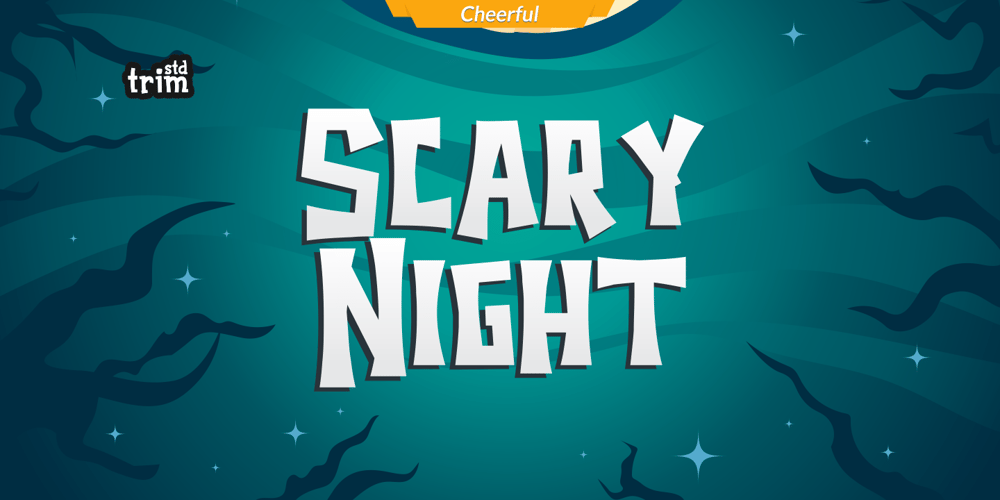
Scary Night
Scary Night font
Scary Night Font Family was designed by Deri Kurnia and published by Trim Studio. Scary Night contains 1 styles and family package options. Scary Night is the perfect Halloween font: scary, weird and creepy. It will add a touch of horror to any design project!Its perfectly suited for crafter and graphic artist to complete their design such as invitation, Halloween Event, advertisement, poster, logo, birthday, product sign, and many more!Scary Night Font also Lightweight, even so contains All Standard glyphs and punctuations